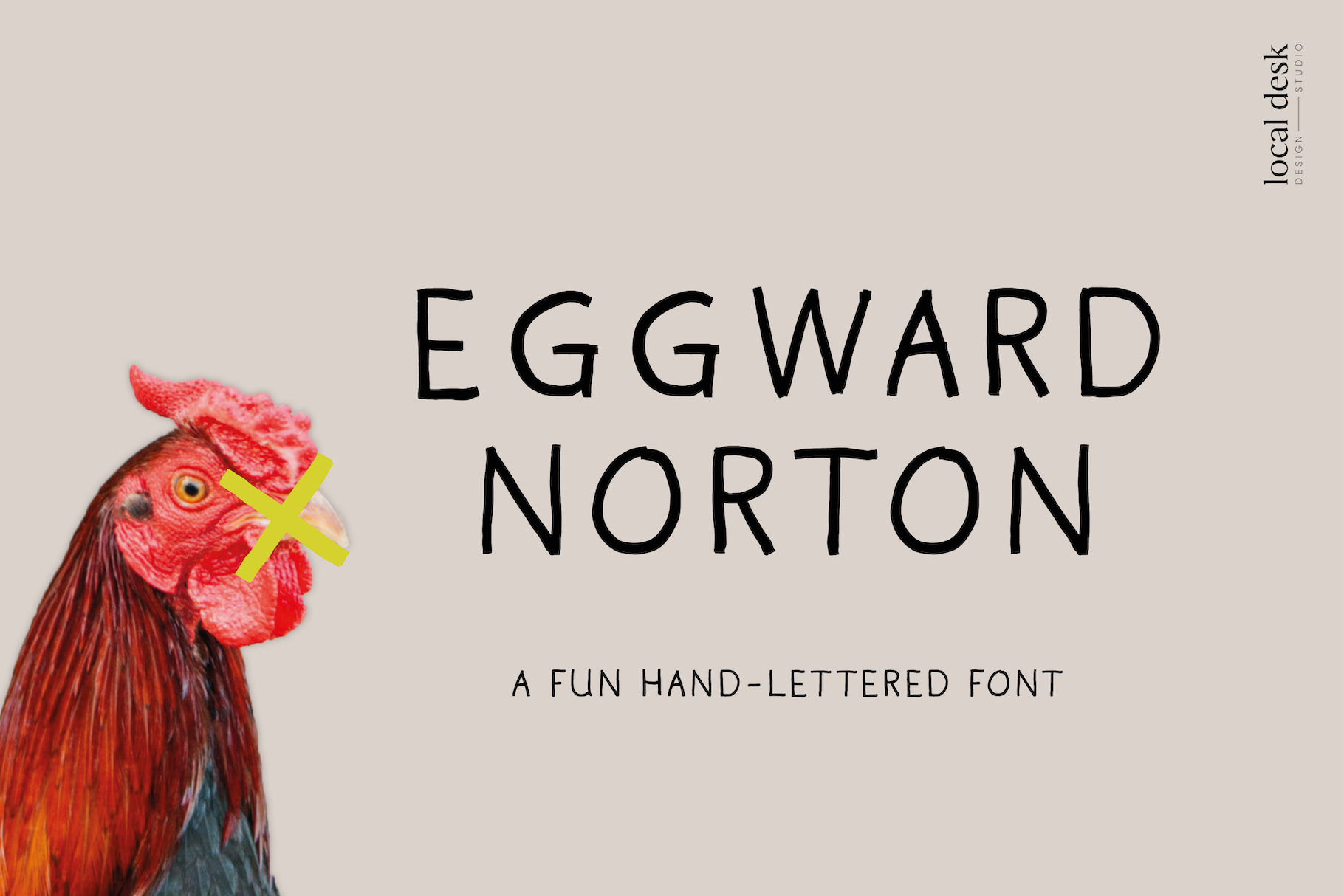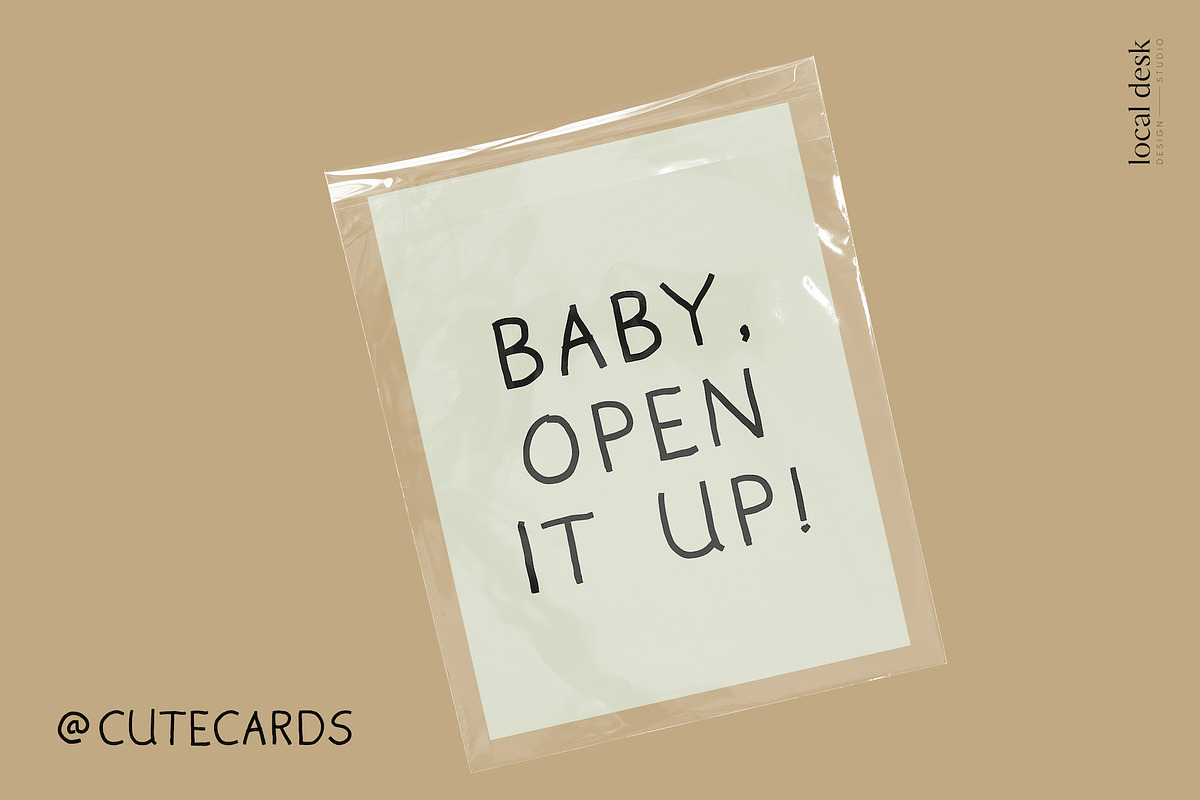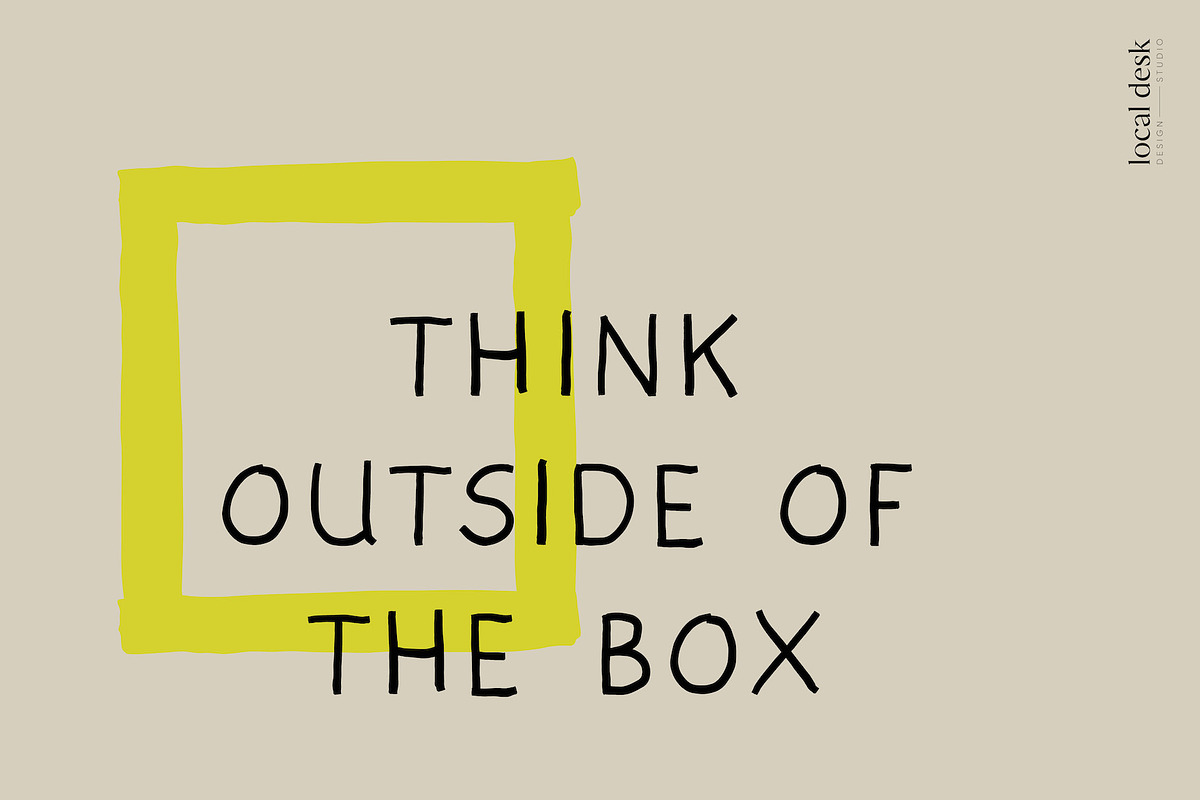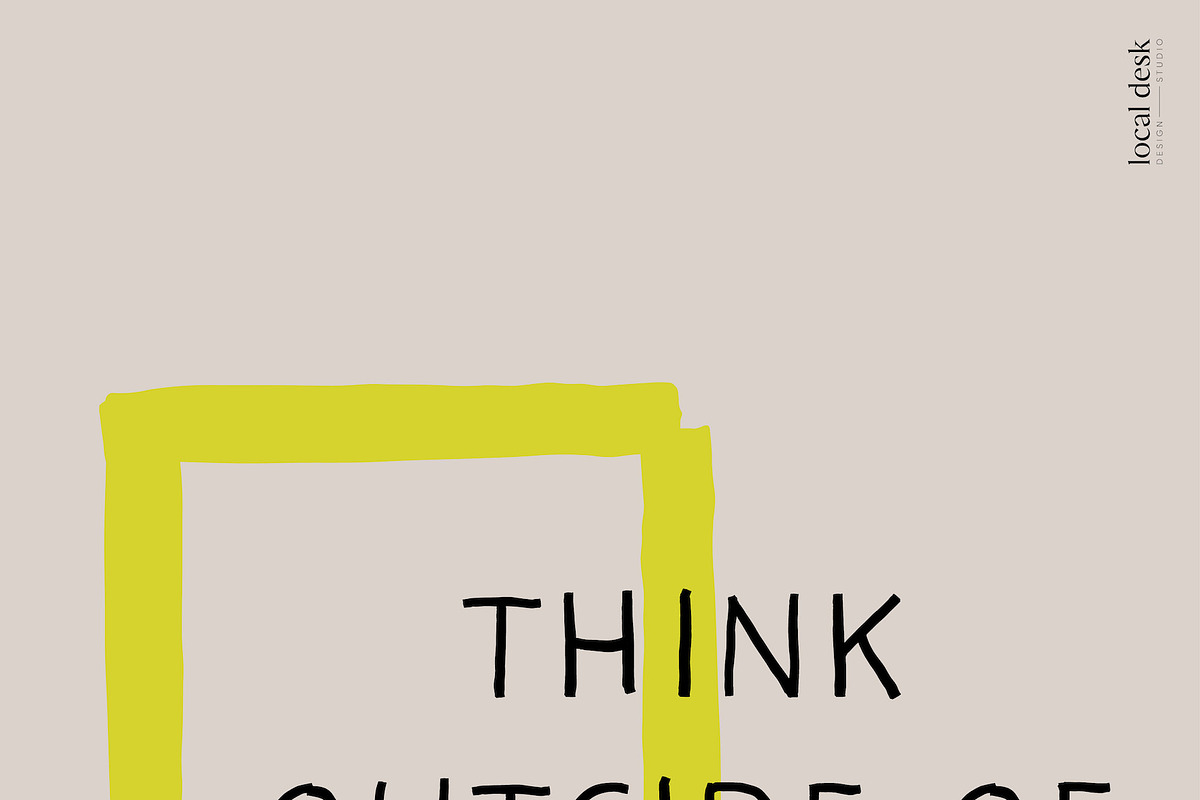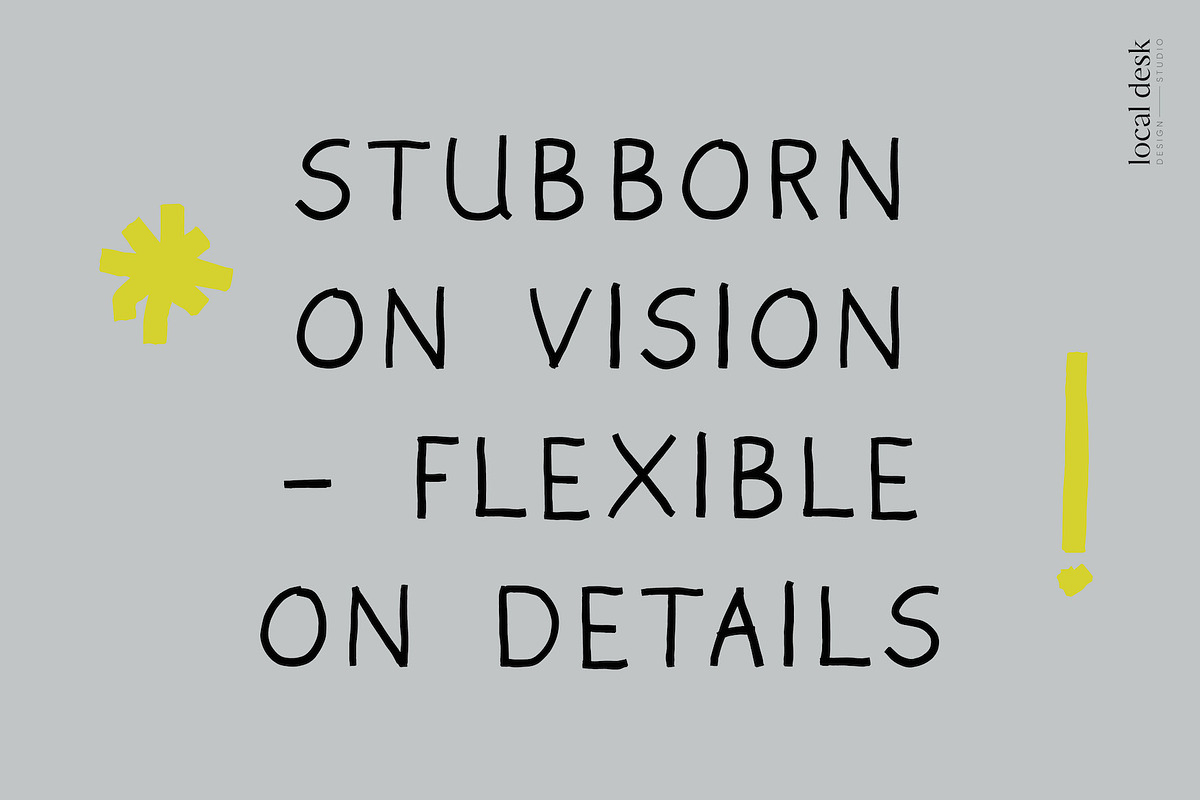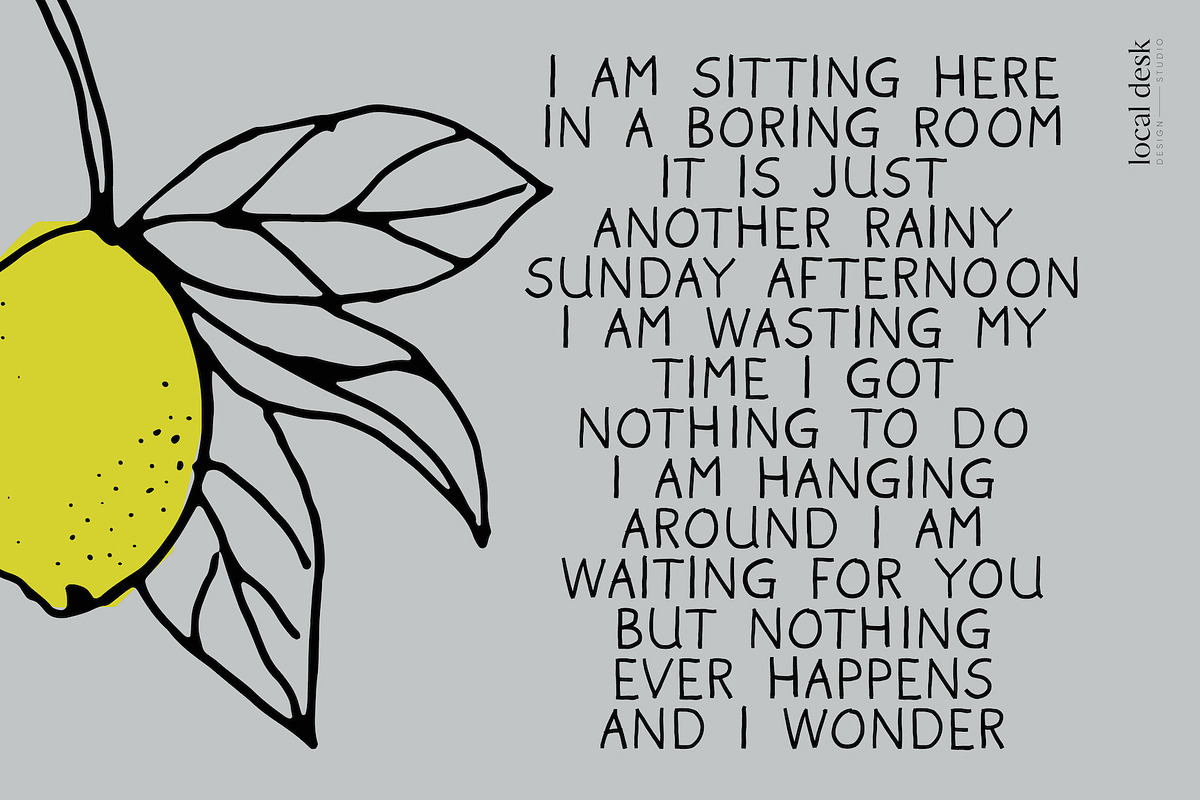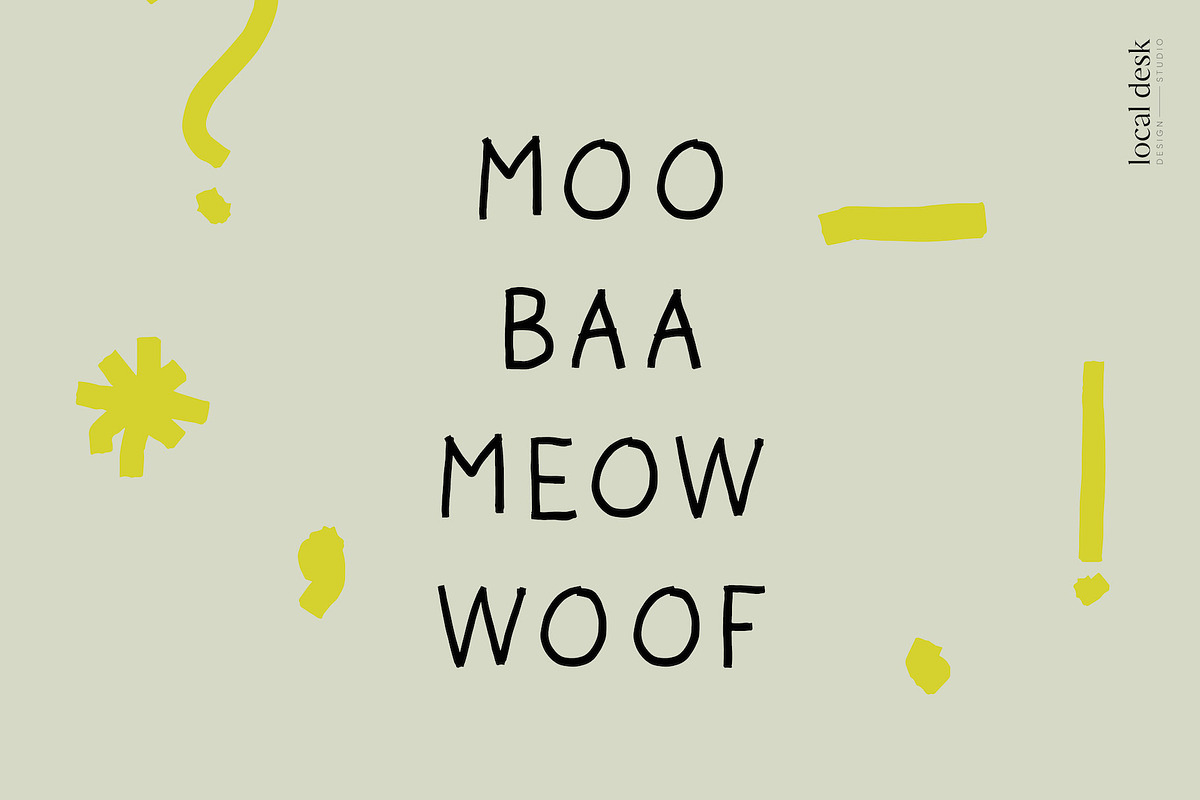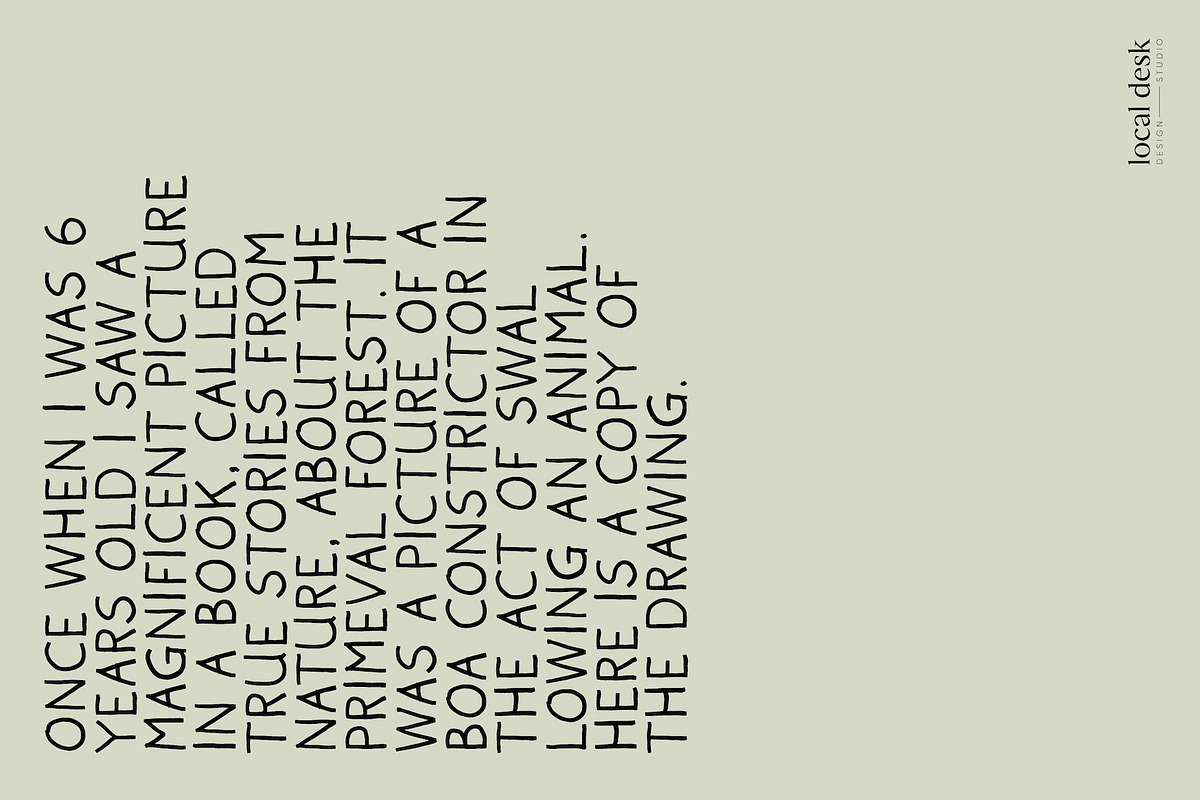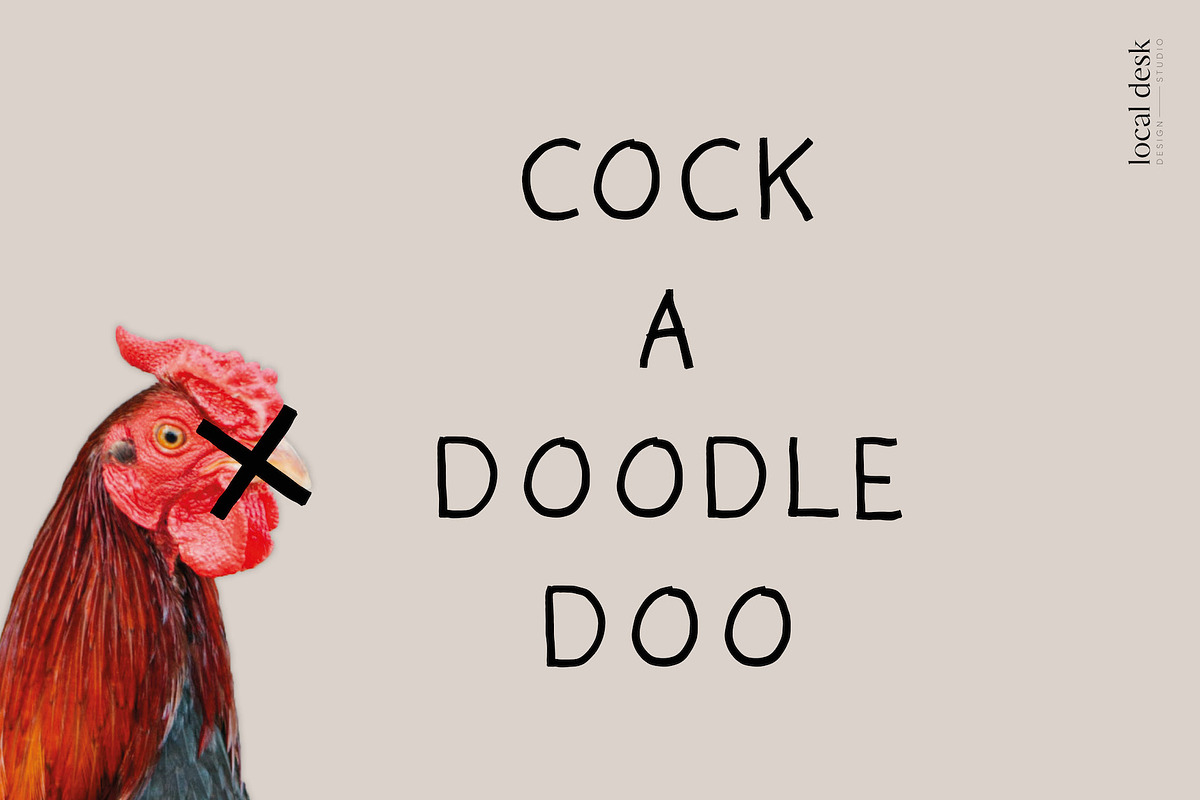
Eggward – A Quick Hand-Lettered Font
Eggward (Norton) is a quick hand-written, fun sans serif typeface with a casual vibe. Eggward is perfectly suited for designing quirky brands, fun packaging, unique quotes, funky websites and so much more!
- Uppercase Alphabet
- Numbers + Basic Punctuation